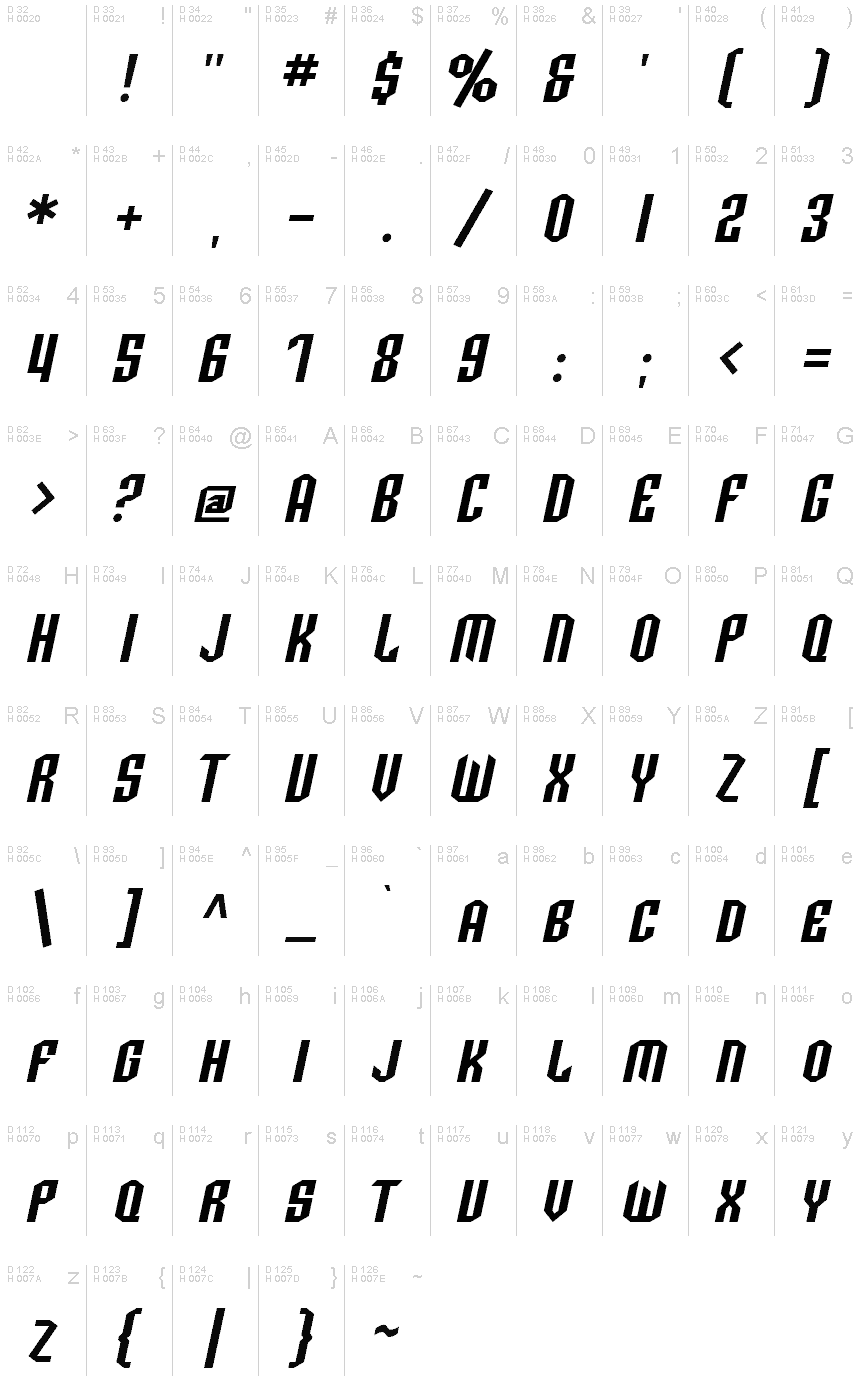
SF Archery Black SC Oblique
SF Archery Black SC Oblique emerges as a striking exemplar of the gothic font genre, seamlessly blending traditional forms with a modern twist. Designed by ShyFonts Type Foundry, this typeface boasts an extra-condensed width that enhances its distinctive character and readability. Its oblique stance adds dynamism to any text, conveying motion and forward-thinking attitude.
The aesthetic appeal of SF Archery Black SC Oblique lies in its bold presence and sharp, clean lines which make it an ideal choice for designers looking to make a strong statement. Its modern style is versatile enough to suit a wide range of creative projects—from impactful branding materials and eye-catching headlines to dynamic digital interfaces.
With its unique blend of classic gothic elements and contemporary flair, SF Archery Black SC Oblique is tailored for those who dare to stand out. Whether you're crafting the visual identity for the next cutting-edge startup or setting the tone in editorial design, this font is poised to elevate your project with its unparalleled style and sophistication.
The aesthetic appeal of SF Archery Black SC Oblique lies in its bold presence and sharp, clean lines which make it an ideal choice for designers looking to make a strong statement. Its modern style is versatile enough to suit a wide range of creative projects—from impactful branding materials and eye-catching headlines to dynamic digital interfaces.
With its unique blend of classic gothic elements and contemporary flair, SF Archery Black SC Oblique is tailored for those who dare to stand out. Whether you're crafting the visual identity for the next cutting-edge startup or setting the tone in editorial design, this font is poised to elevate your project with its unparalleled style and sophistication.